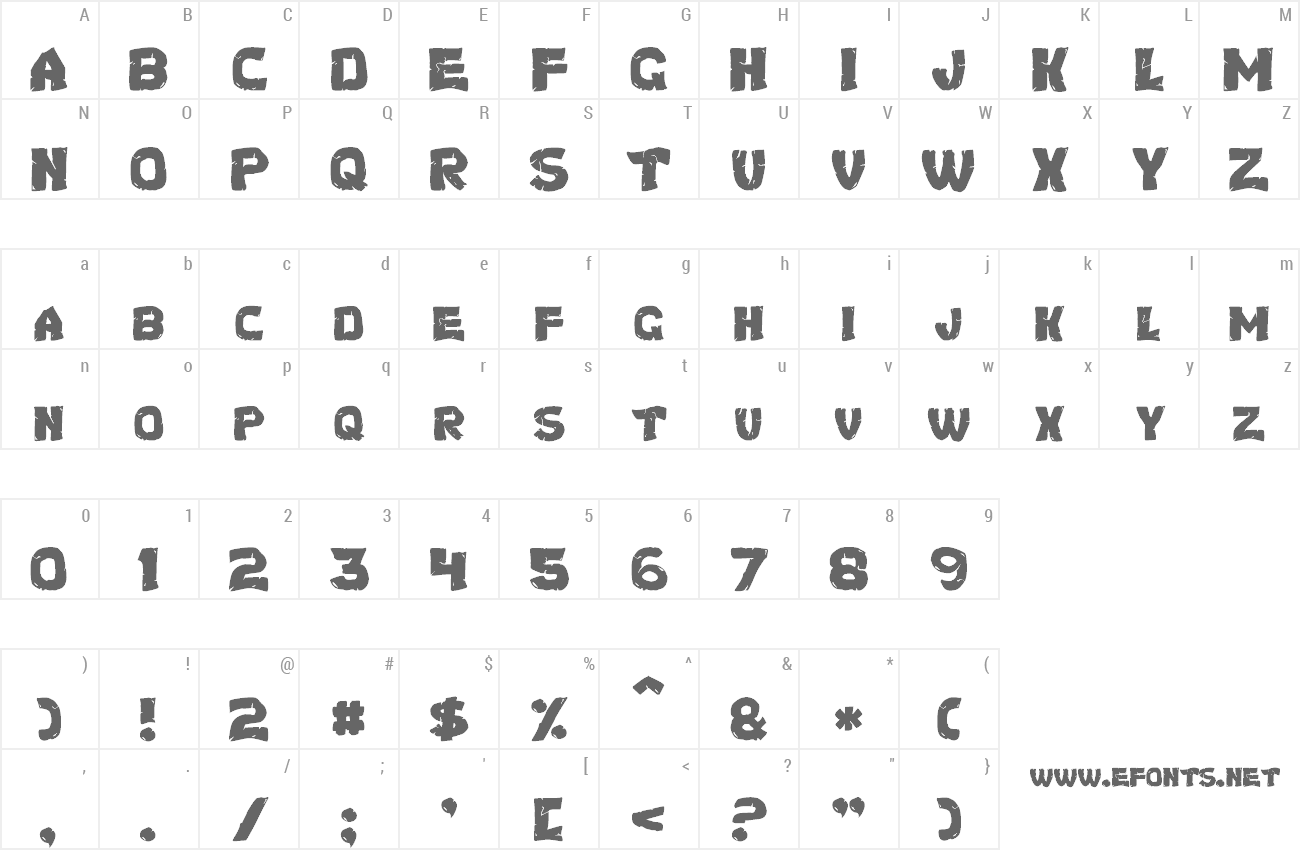
| Font name: | Turtles |
| Author: | Pixel Sagas |
| Note by Pixel Sagas | |
| This thick, distressed typeface is based on the popular clasic "Teenage Mutant Ninja Turtles" logo. Includes the Euro, extended punctuation, and accent characters. |